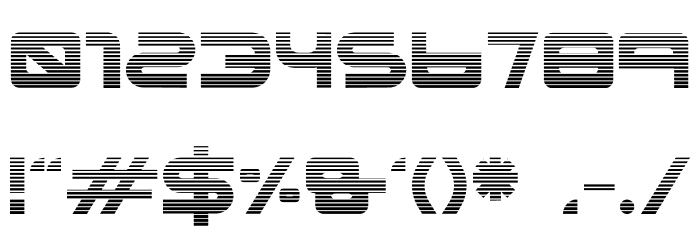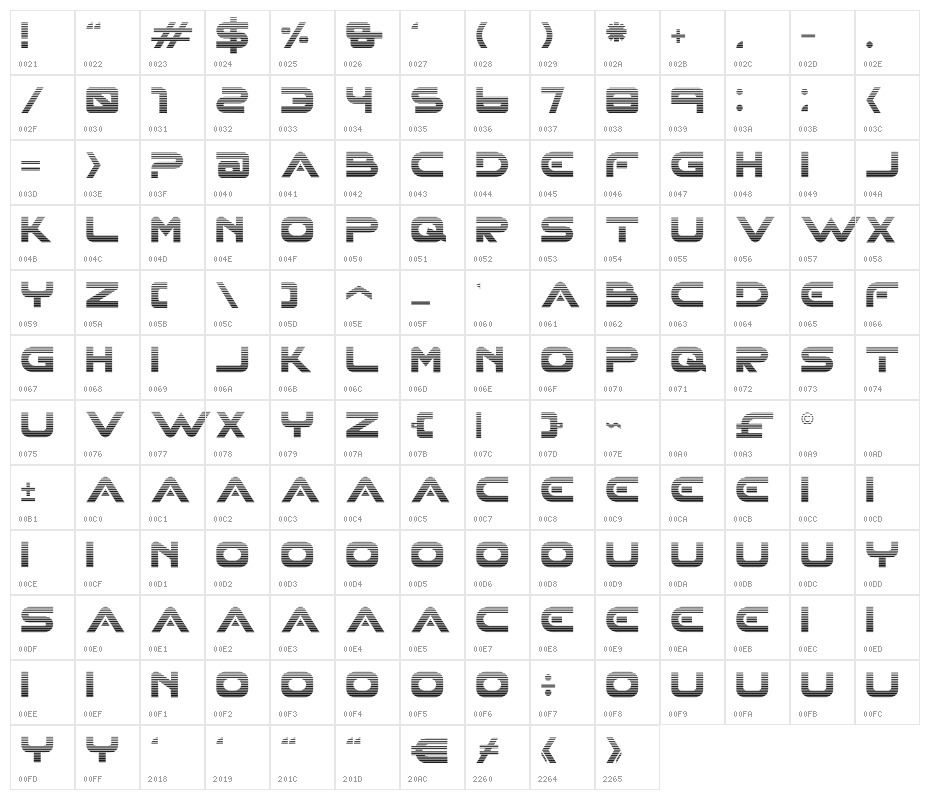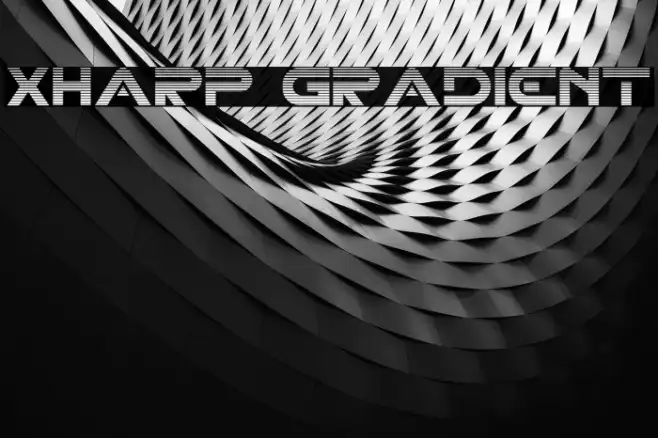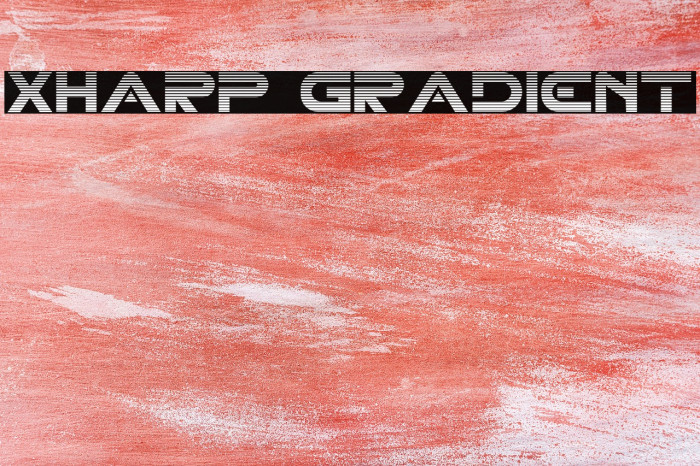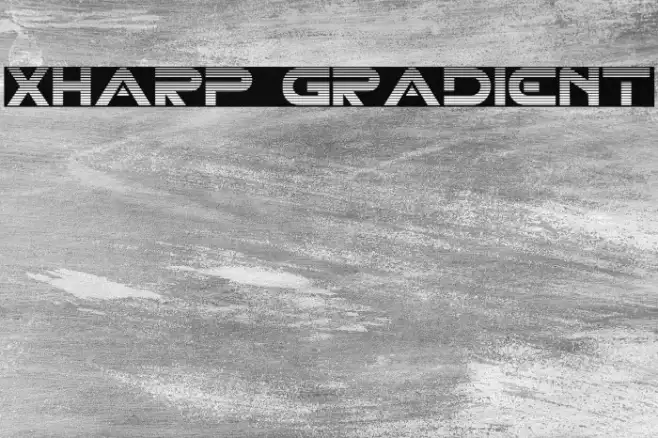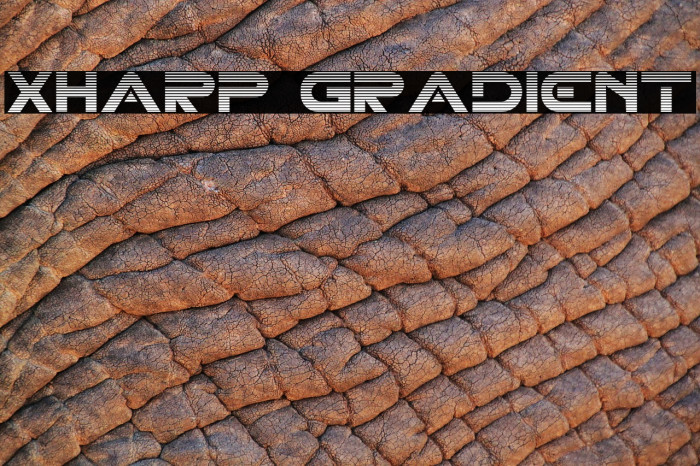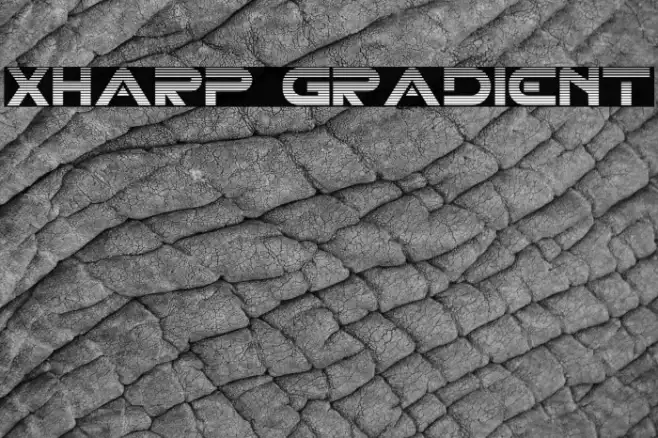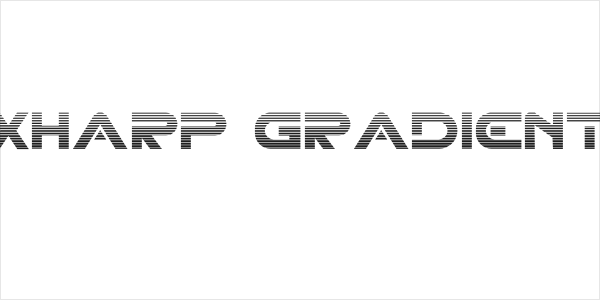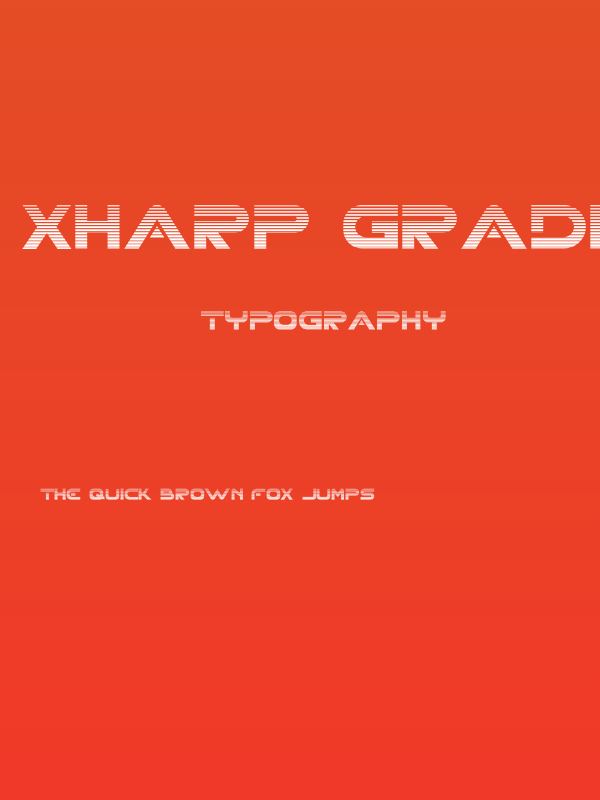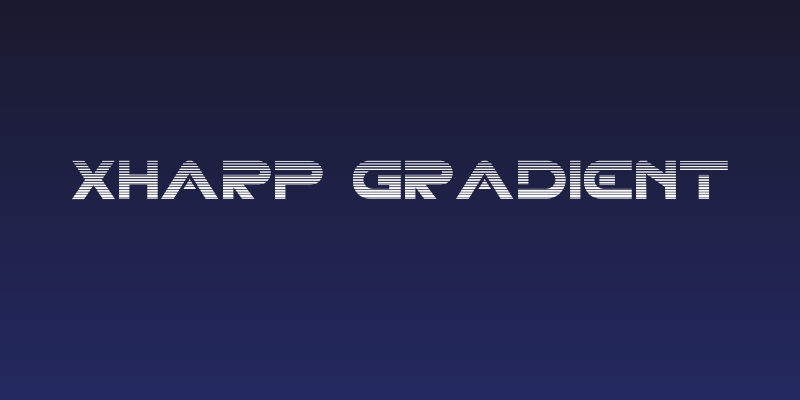
XHARP Gradient Font
XHARP Gradient Description
This font features a modern, futuristic design with a unique gradient effect created by horizontal lines. Each character is constructed with a series of parallel lines that form the shape of the letter, giving it a dynamic and energetic appearance. The uppercase and lowercase letters maintain a consistent style, with sharp angles and geometric forms. The numbers and special characters follow the same design principles, ensuring a cohesive look across all glyphs. This font's distinct style makes it ideal for projects that require a bold and eye-catching typeface.
| Proposed Projects | Ideal for technology branding, sci-fi movie posters, video game titles, and modern advertising campaigns. |